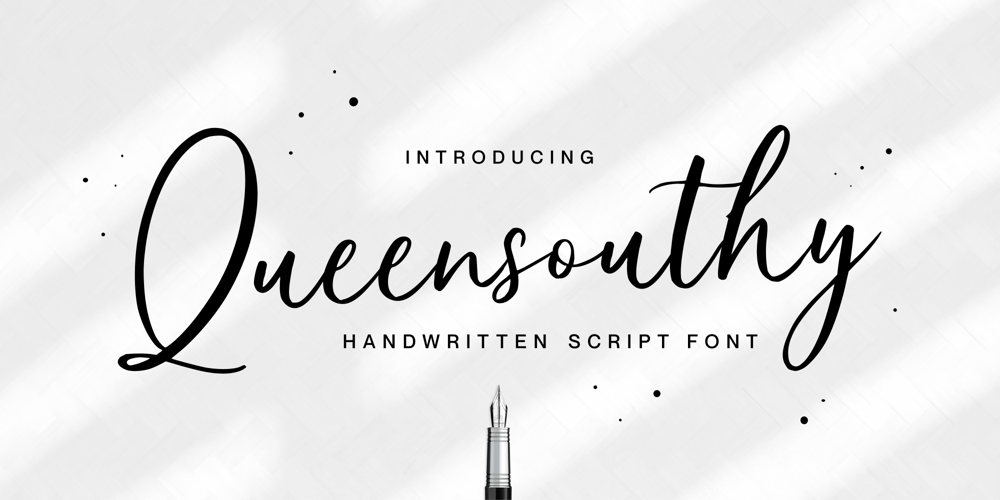
Queensouthy Font Family was designed by Fachrizal Yusuf and published by Allouse Studio. Queensouthy contains 1 styles and family package options. Proudly Presenting, Queensouthy A Handwritten Script Font.Queensouthy is perfect for any titles, logo, product packaging, branding project, megazine, social media, wedding, or just used to express words above the background.Queensouthy also come with Multi-Lingual Support.Enjoy the font, feel free to comment or feedback, send me PM or email. Thank You!